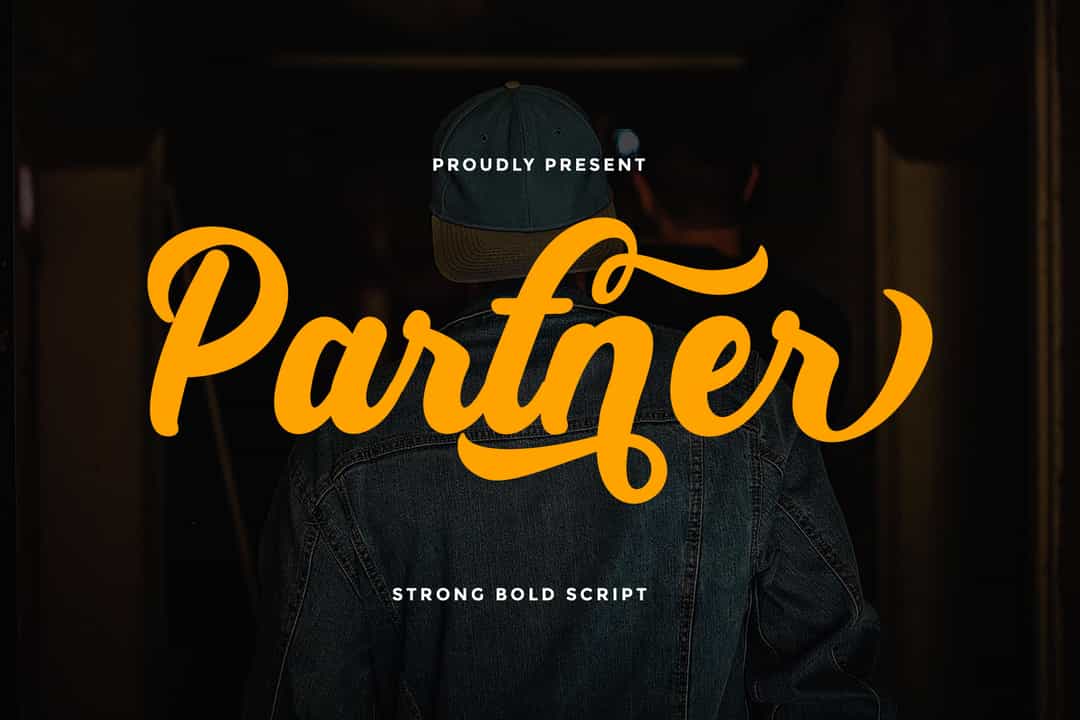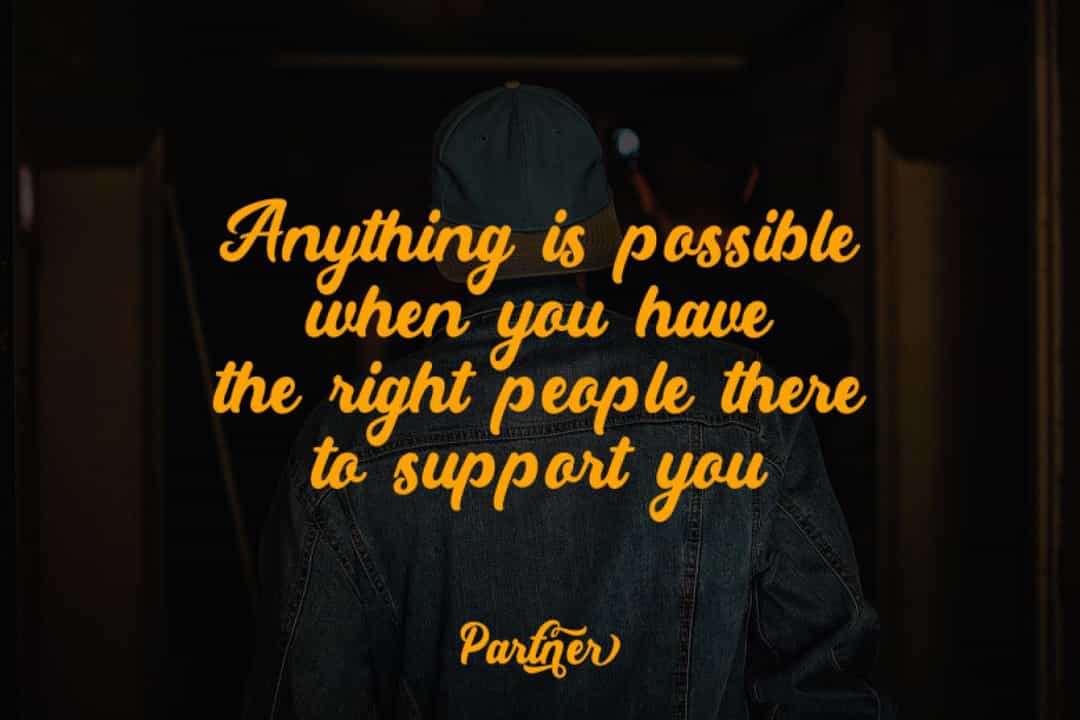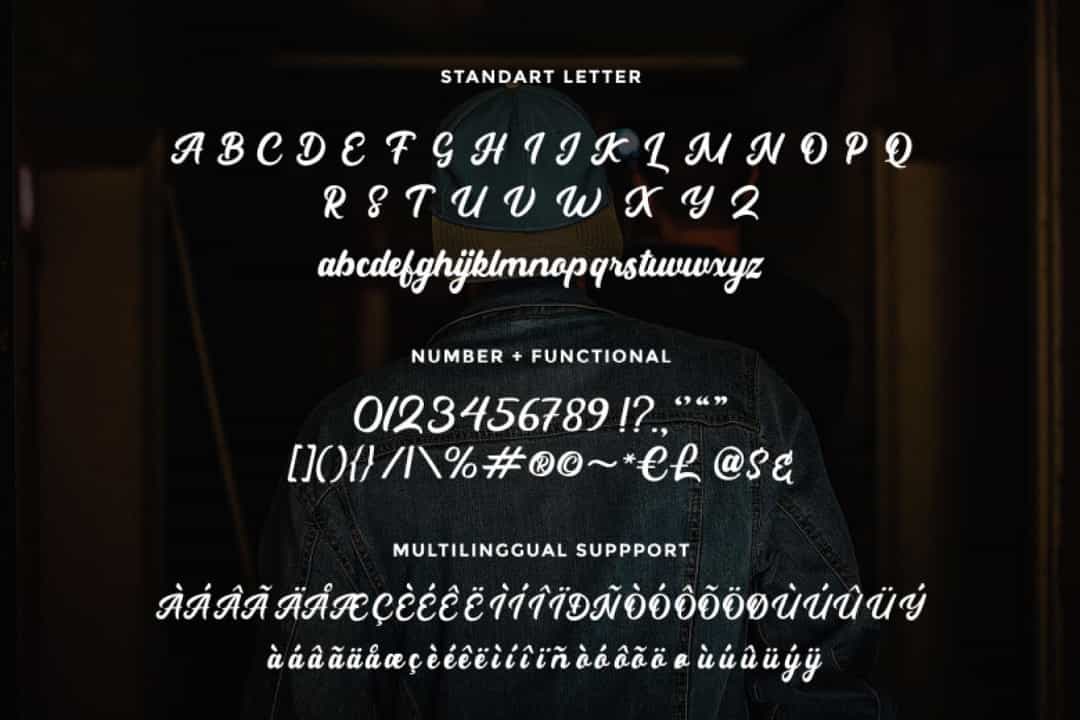
Partner is a beautiful handwritten font by Rantautype and its creation was influenced by vintage and hand lettering designs – each curve bears the mark of my design. Great for logotypes, branding, promotional advertising, quotes packaging, T-shirt design, products, posters, social media, social media marketing & more.